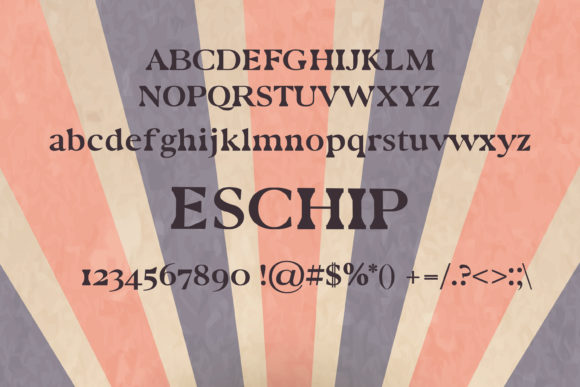
Eschip Font: A Retro-Inspired Typographic Marvel
In the realm of typography, few fonts manage to evoke the nostalgia and charm of retro designs from the 80’s. Eschip Font is one such typographic marvel that seamlessly blends the boldness of modern typography with the vintage appeal of retro fonts. If you’re a designer, crafter, or simply a typography enthusiast, Eschip Font is sure to captivate you with its unique character and style.
The Inspiration Behind Eschip Font
Eschip Font draws its inspiration from the iconic typography of the 1980s, a decade known for its bold, colorful, and playful design aesthetic. The font’s creators aimed to revive the nostalgic feel of that era, combining it with a modern twist to create a truly distinctive typographic experience. The result is a font that exudes a sense of fun, energy, and playfulness, making it perfect for a wide range of design projects.
Key Features of Eschip Font
Eschip Font boasts several key features that set it apart from other typography styles:
- Retro Appeal: Eschip Font’s design is deeply rooted in retro typography, evoking memories of 80’s posters, advertisements, and magazines.
- Bold Typography: The font features bold, chunky letterforms that demand attention and make a statement.
- Vintage Flair: Eschip Font’s unique character set includes special glyphs and alternates that add to its vintage charm.
- High Versatility: The font is suitable for a wide range of design applications, from branding and advertising to packaging and digital media.
Using Eschip Font in Design Projects
Eschip Font’s versatility makes it an excellent choice for various design projects. Here are a few ideas to get you started:
- Branding and Logo Design: Create a bold, eye-catching logo that stands out with Eschip Font’s distinctive style.
- Advertising and Marketing Materials: Use Eschip Font to add a touch of nostalgia and playfulness to your ads, flyers, and brochures.
- Packaging Design: Add a retro flair to your product packaging with Eschip Font, making it instantly recognizable on store shelves.
- Digital Media: Incorporate Eschip Font into your website, social media graphics, or video projects to add a unique, retro-inspired touch.
Tips for Getting the Most Out of Eschip Font
To maximize the impact of Eschip Font in your design projects, keep the following tips in mind:
- Experiment with Color: Combine Eschip Font with bold, bright colors to amplify its retro appeal.
- Play with Texture: Add texture and depth to your design by incorporating Eschip Font with different backgrounds or overlays.
- Mix and Match: Combine Eschip Font with other typography styles to create a unique, visually appealing contrast.
Eschip Font is a typographic gem that offers a refreshing blend of retro charm and modern boldness. Whether you’re a designer, crafter, or simply a typography enthusiast, Eschip Font is sure to inspire you with its vintage appeal. With its versatility, unique character set, and distinctive style, Eschip Font is an excellent addition to any design project. So, get creative and let Eschip Font’s nostalgic charm shine in your next design endeavor!